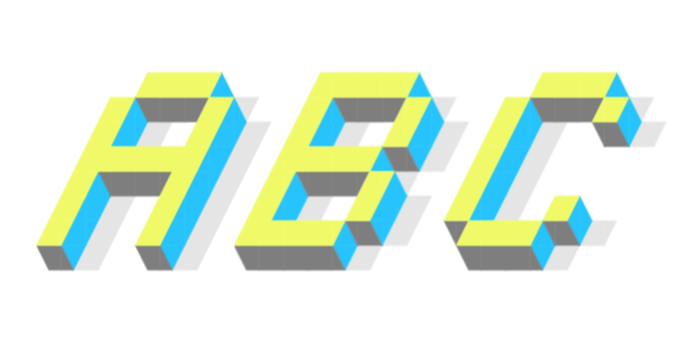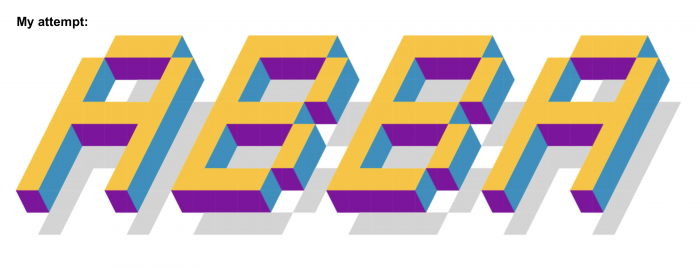
Inspired by INVASION BLOCK (by the great Upixel), but right slanted, with more glyphs added (206 in total) and some of the originals slightly retouched.
Great work. You may add a shadow layer, too — a subtle light grey shadow from the right direction. 10/10
@elmoyenique - Very effective use of the FontStruct color feature, here.  Congratulations!  :^)
I thought about something like this: a shadow on the right side. I've changed only a few letters but don't want to finish the whole set. It is your font, after all. You can make a separate version with shadows if you like. By the way, congratulations to the TP. Very well deserved.
Works very well, especially with your chosen color palette.
Colored, 3d, and italicized, how do you make this
@Frodo7: Your idea of ​​subtle shading seems very appropriate. Before seeing your proposal, I'd tried another kind of shadow, but I definitely prefer your proposal. I'll add it to a new version of zUpixel that I'm already completing. Thanks a million!
I've been thinking of using a bit less letter spacing than Frodo7 used. What do you think, people?
I increased the spacing for demo purposes only. For text, even zero space works fine. Experiment freely and see what works best.
Excellent work, I love the idea of adding a drop shadow to this.
Reason 2. I like how you tilted it.